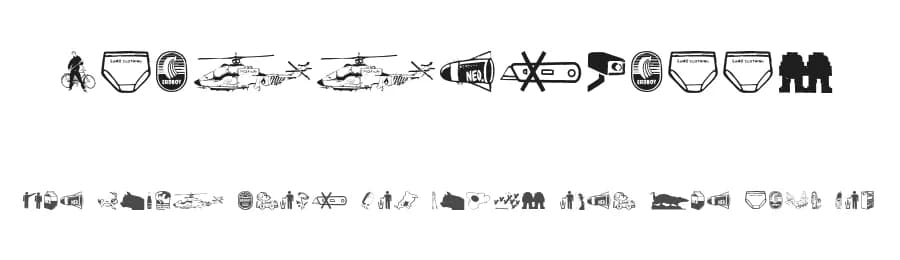
About PlakkenWalls Font
The images were taken from deconstructed posters, stickers and graffitis found in public places (original artwork by Badfame inc, Bild, CBS, Erdboy, Free, Freeze, Funk, itchicrew, Milk, Neo, Stirb, Sumo, Tasek and many others). Do not use this font for logotypes or trademarks.
| Designer | Stefanie Koerner |
PlakkenWalls Font is a versatile dingbats font that works for both headings and body text. Pair it with a contrasting sans-serif or serif font to add visual interest and a clear distinction between titles and body copy.
PlakkenWalls Font
by pheist